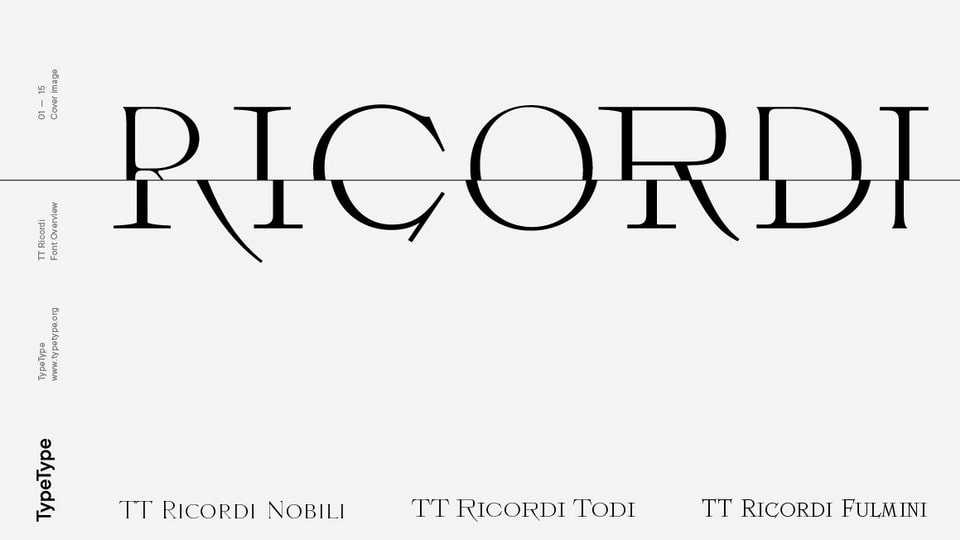
Download The TT Ricordi fonts, a collection of three display heading serifs designed to significantly diversify the traditional font palette. Each font from the TT Ricordi typeface was drawn by a separate designer and has its own story.